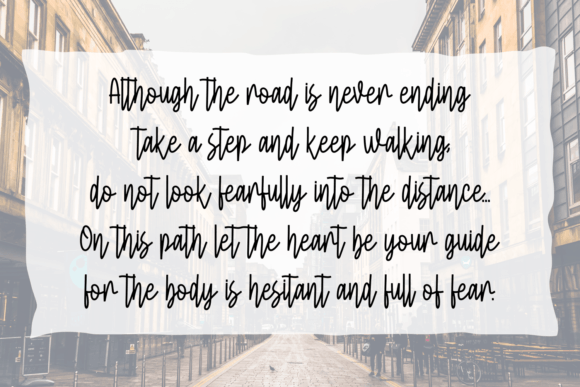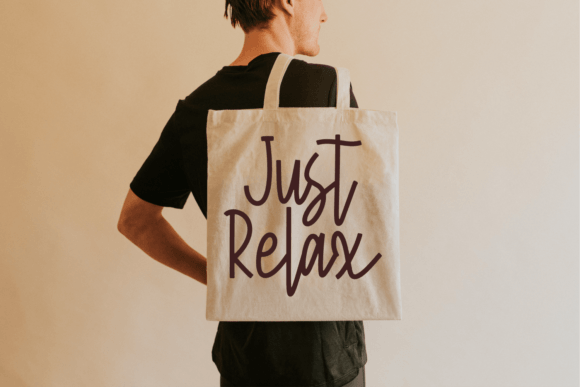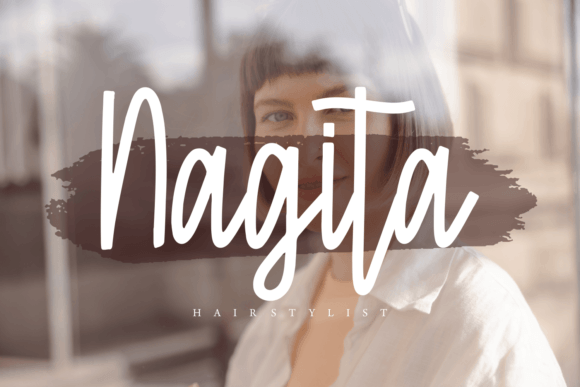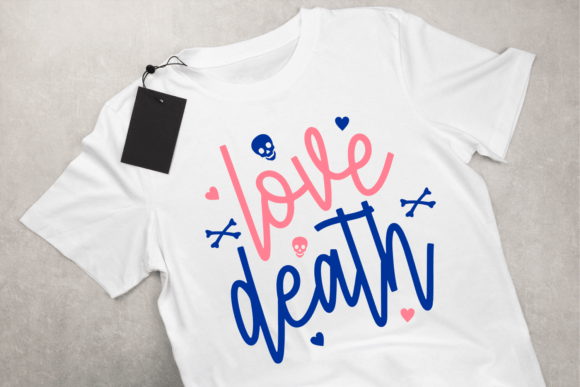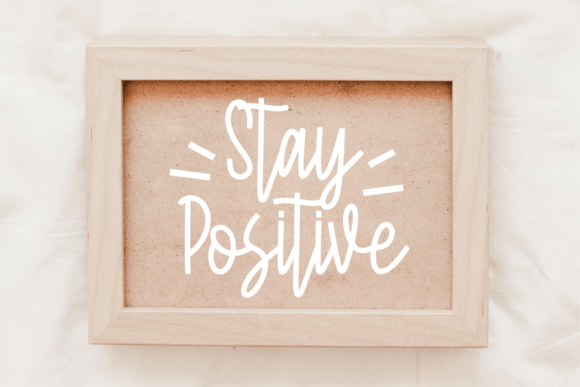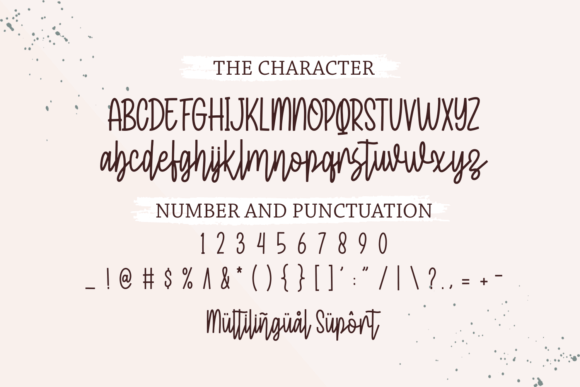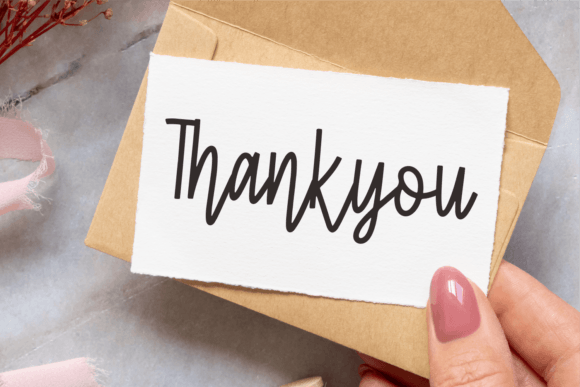
Restou Font
About Restou Font
Introducing an opulent and refined handcrafted font meticulously created to leave a lasting impression on your audience and illuminate your brand with a radiant glow. This exquisite font has the power to infuse your projects with an air of sophistication and charm. Whether gracing your headings, embellishing your logos, enhancing advertisements, adorning printed quotes, or elevating packaging, its versatility knows no bounds. Even in the digital realm, be it on your website or social media platforms, this font will breathe life into your branding, making it unforgettable.
What sets this font apart is its ability to make every letter a work of art, with a unique and captivating touch. Each character exudes a beauty that transcends the ordinary, transforming your design into a dynamic visual experience. The meticulous craftsmanship behind each letter ensures that your projects not only meet but exceed the standards of elegance.
Picture your brand dancing across various mediums, leaving an indelible mark. Let it take center stage in your printed materials, exuding sophistication in every curve and line. Watch as it seamlessly integrates into your digital presence, making your website and social media platforms not just informative but visually stunning.
For your promotional materials, this font is a game-changer. Imagine your advertisements becoming a visual feast for your audience, with each word carefully sculpted to draw attention and evoke a sense of luxury. Picture your packaging adorned with this font, transforming a simple label into a statement piece that speaks volumes about your brand.
In the realm of logos, this font becomes your brand ambassador. It whispers tales of craftsmanship and attention to detail, conveying a message of quality and excellence. The font doesn’t just complement your brand; it becomes an integral part of its identity, ensuring that your logo is not just a symbol but a work of art.
As you embark on the journey of incorporating this font into your projects, be prepared to witness the transformation. Your designs will cease to be mere visuals; they will become an experience, leaving an imprint on the minds of your audience. So, let your creativity soar, and let this font be the brushstroke that paints your brand’s story with elegance, charm, and unparalleled style.